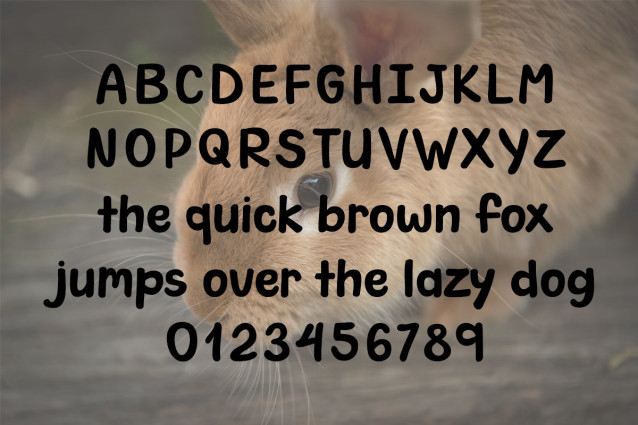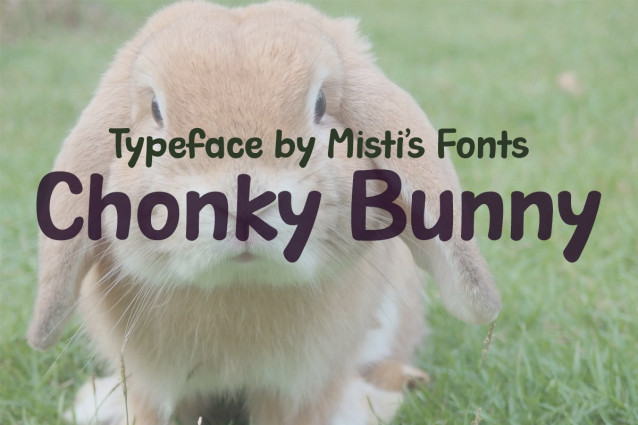
Chonky Bunny Font
Chonky Bunny Font is a bold, playful handwritten typeface that hops right off the page! With its chunky, rounded letters and whimsical charm, this font is perfect for Easter-themed designs, springtime projects, and anything that needs a touch of fun. Whether you’re creating greeting cards, product packaging, or social media graphics, Chonky Bunny brings a cozy, handmade feel.